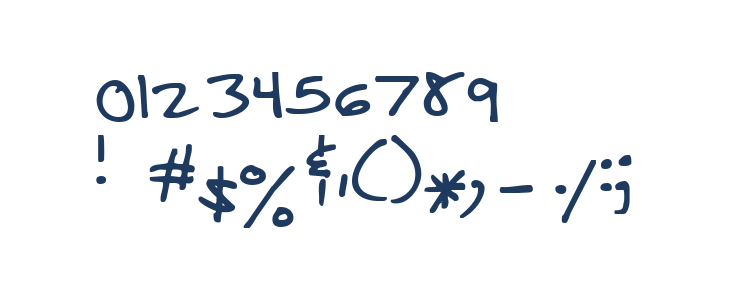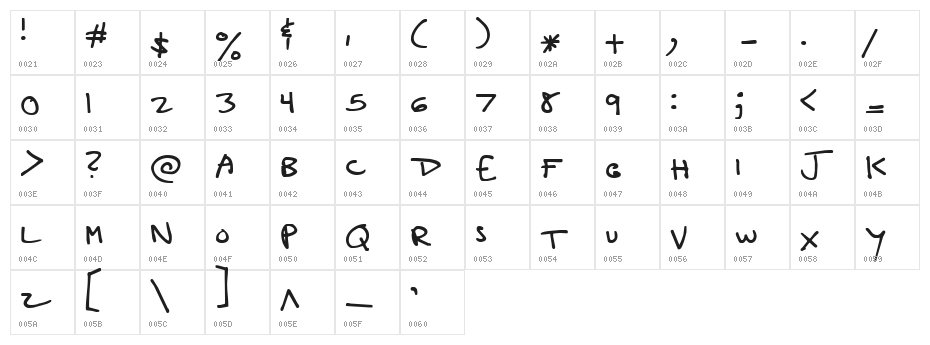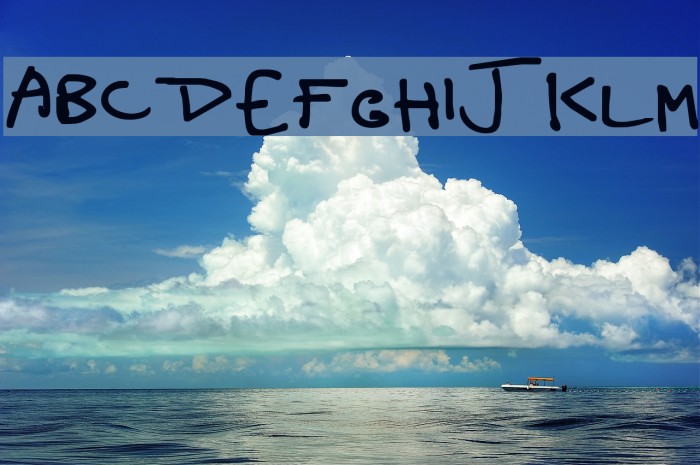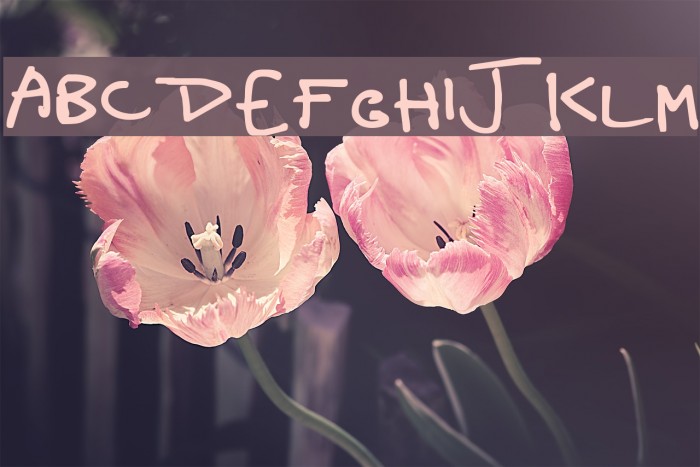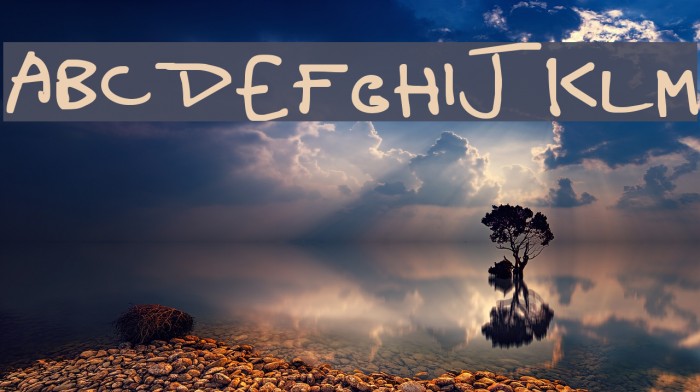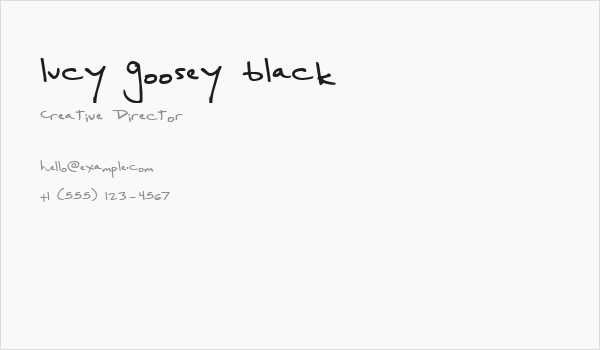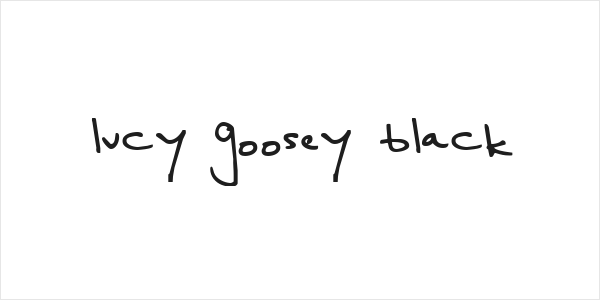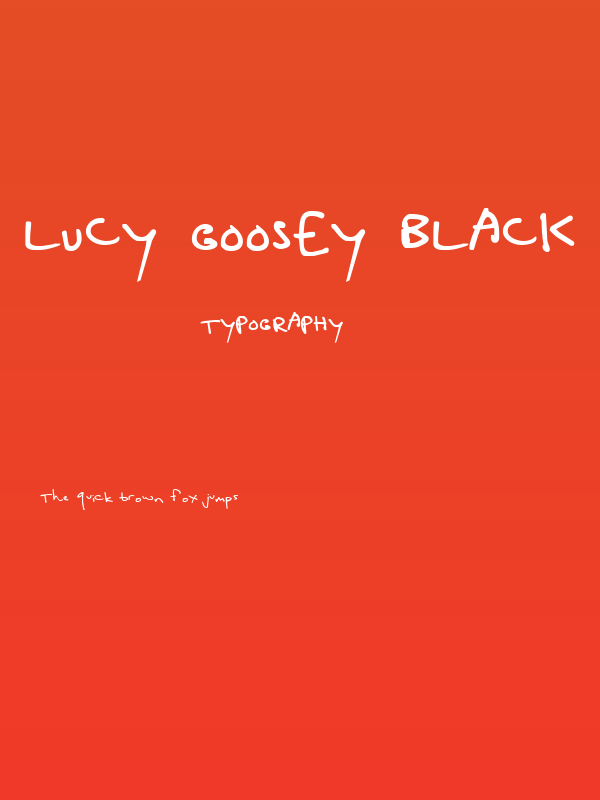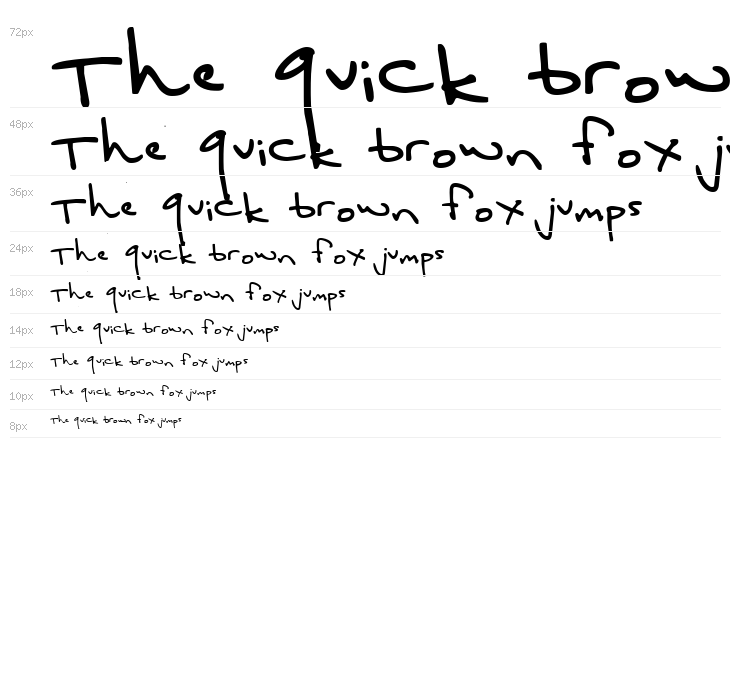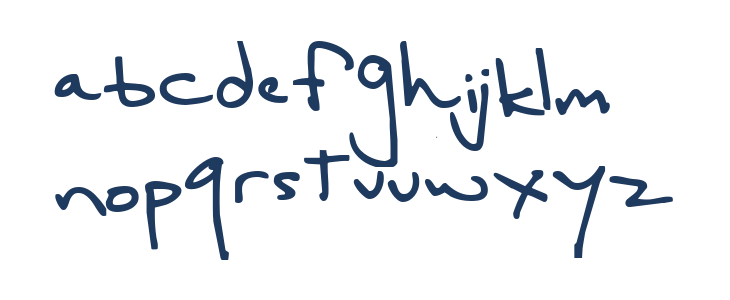
lucy goosey black Font
lucy goosey black Description
This playful and informal font features a handwritten style with a casual, relaxed appearance. The letters are slightly irregular, giving it a whimsical and approachable feel. The strokes are bold and rounded, with a consistent thickness throughout, creating a cohesive look. The characters have a natural flow, reminiscent of quick, spontaneous writing. This font includes both uppercase and lowercase letters, numbers, and a variety of special characters, making it versatile for different uses. The overall design is friendly and engaging, perfect for projects that require a personal touch.
| Use Case | Headlines, Informal Text, Creative Projects |
| Proposed Projects | Ideal for greeting cards, children's books, playful branding, and casual invitations. |